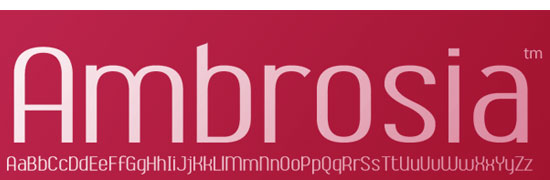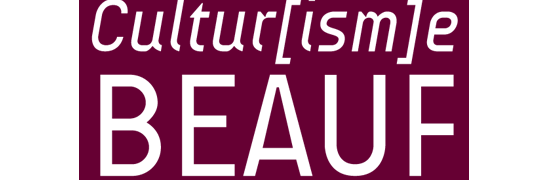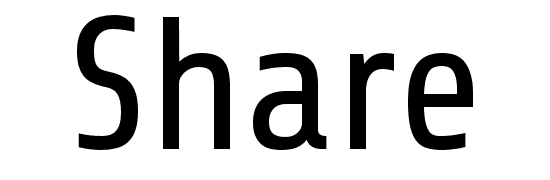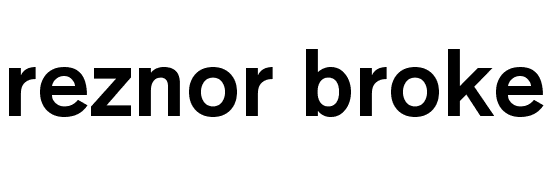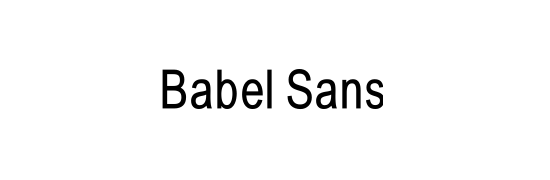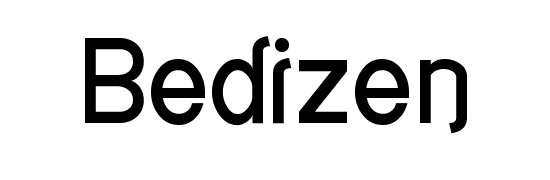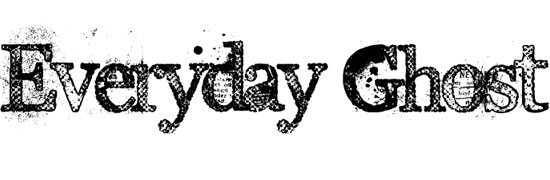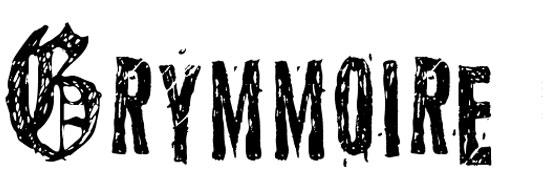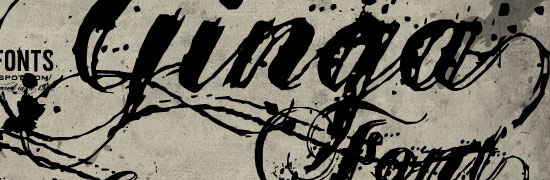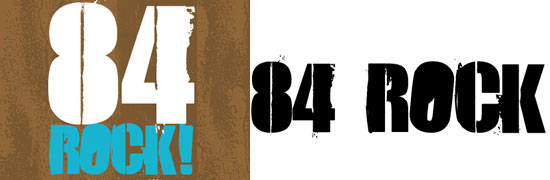
The proper selection of typography in a web design can set the appropriate theme and mood that the designer is going for. Web design is extremely important because it’s sometimes a user’s first impression of your company. That means it should be organized and professional, and typography can help create the professional look you desire.
T here are a lot of free fonts on the web – created by talented designers and type foundries. In this collection, you’ll find 45 first-class, downloadable fonts for your use.
Clean, Modern, Web 2.0
Eurofurence
Cicle
Share
Reznor Broken
Alte Haas Grotesk
Abrosia
Babel Sans
AUdimat
Folks TT
Bedizen
tondo
Grunge
Birth of a Hero
Everyday Ghost
Times New Yorker
Grymmoire
District
Ginga
Sidewalk
Trashco
Dirty and Classic
Laundromat 1967
84 Rock
Vintage / Retro
Americana Dreams
Vintage
02.10 fenotype
Automania
Chick
Deftone Stylus
Groove Machine
METRO-RETRO
Registry
Mexcellent
Swingtime MF
Hand Drawn / Painted
Joe Hand 2
advent
Sunday Morning Garage Sale
Rough Draft
Burst My Bubble
Loved by the King
Angelina
Sebastián Font
Karabine
Loveable Scruff
AE Scrawl
Edo
Note